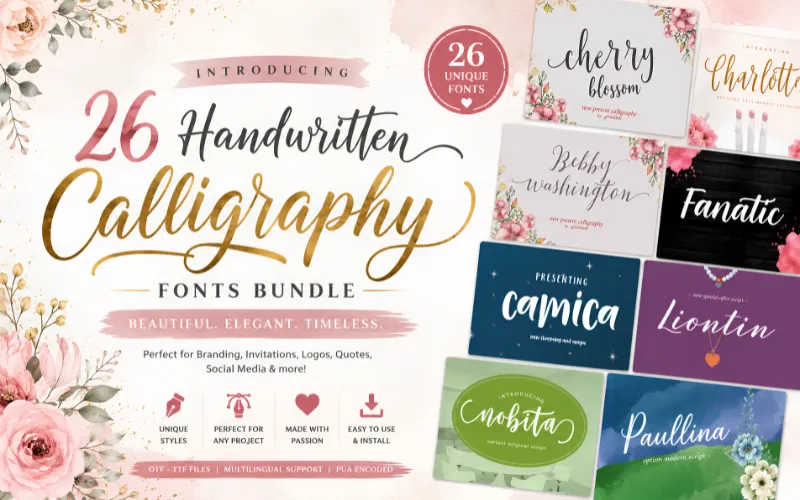
26 Handwritten Calligraphy Fonts for Elegant Designs
Beautiful typography can instantly make your branding, invitations, packaging, and social media designs look more elegant and professional.
Creating premium handwritten typography from scratch takes time.
But this bundle gives you ready-to-use calligraphy fonts for every creative project. Introducing –
Handwritten Calligraphy Fonts Bundle
A premium collection of handwritten script calligraphy fonts designed to help you create stylish branding, invitations, packaging, posters, and creative marketing materials with ease.
Each font includes beautifully crafted script lettering with alternates, ligatures, glyphs, and decorative strokes to give every project a natural handwritten appearance.
Preview of the Handwritten Calligraphy Fonts
- Handwritten Script Calligraphy Font
- Script Calligraphy Style
- 26 Handcrafted Characters
- Alternates, Ligatures, Glyphs & Decorative Strokes
Do the fonts include ligatures and alternates?
Yes. They include alternates, ligatures, glyphs, and decorative strokes.